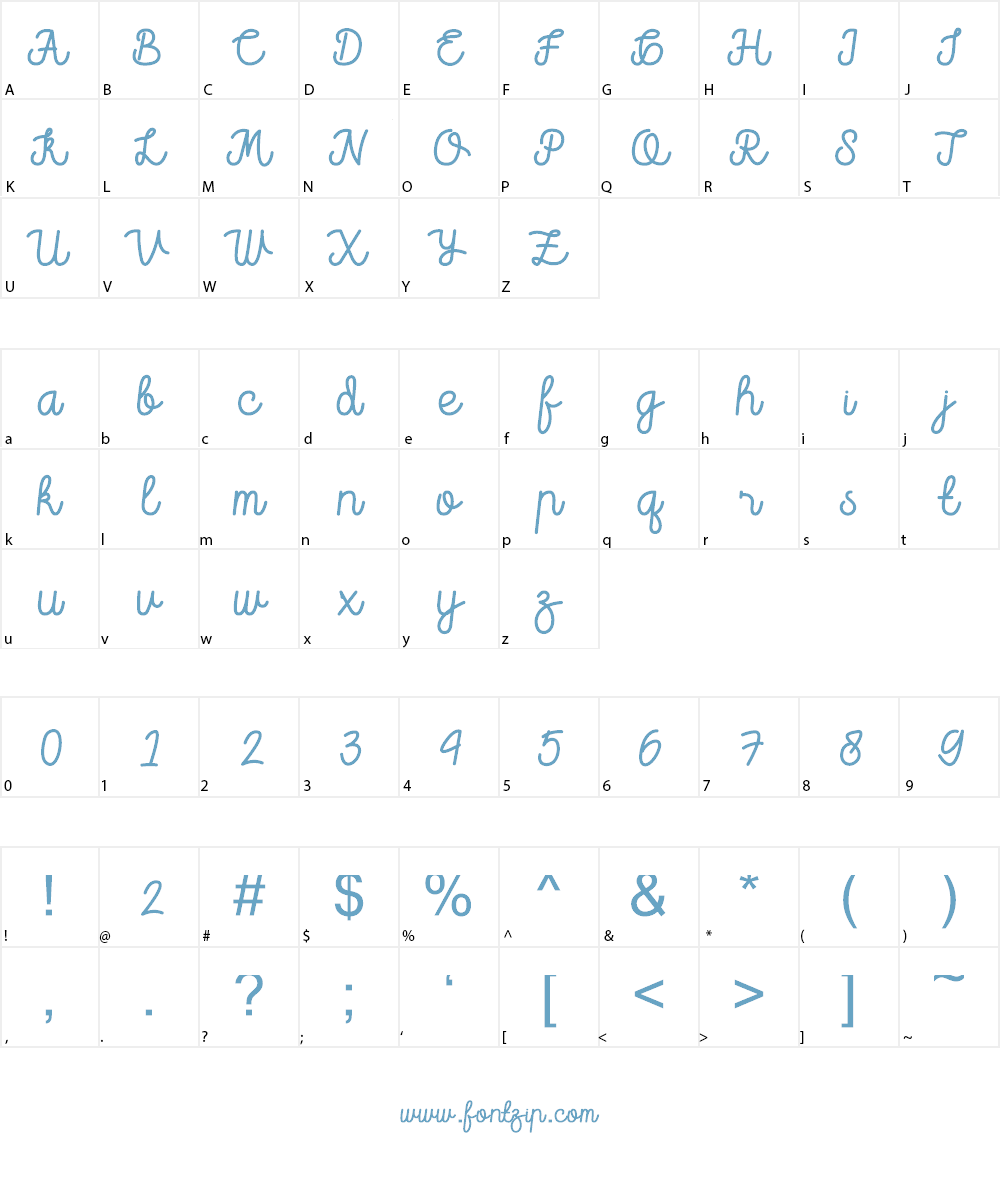
Doubbble Helllo - font monoline script that is inspired by dribbble and san serif made with a medium thickness pen that will make your design look more beautiful and soft.
Doubbble Helllo - will be perfect for magazines, business cards, invitations, packaging, tshirt, and all designs that require beautiful and soft elements.